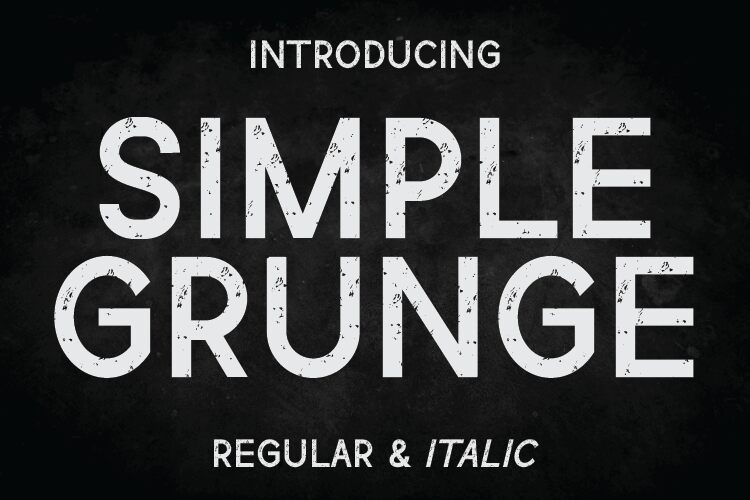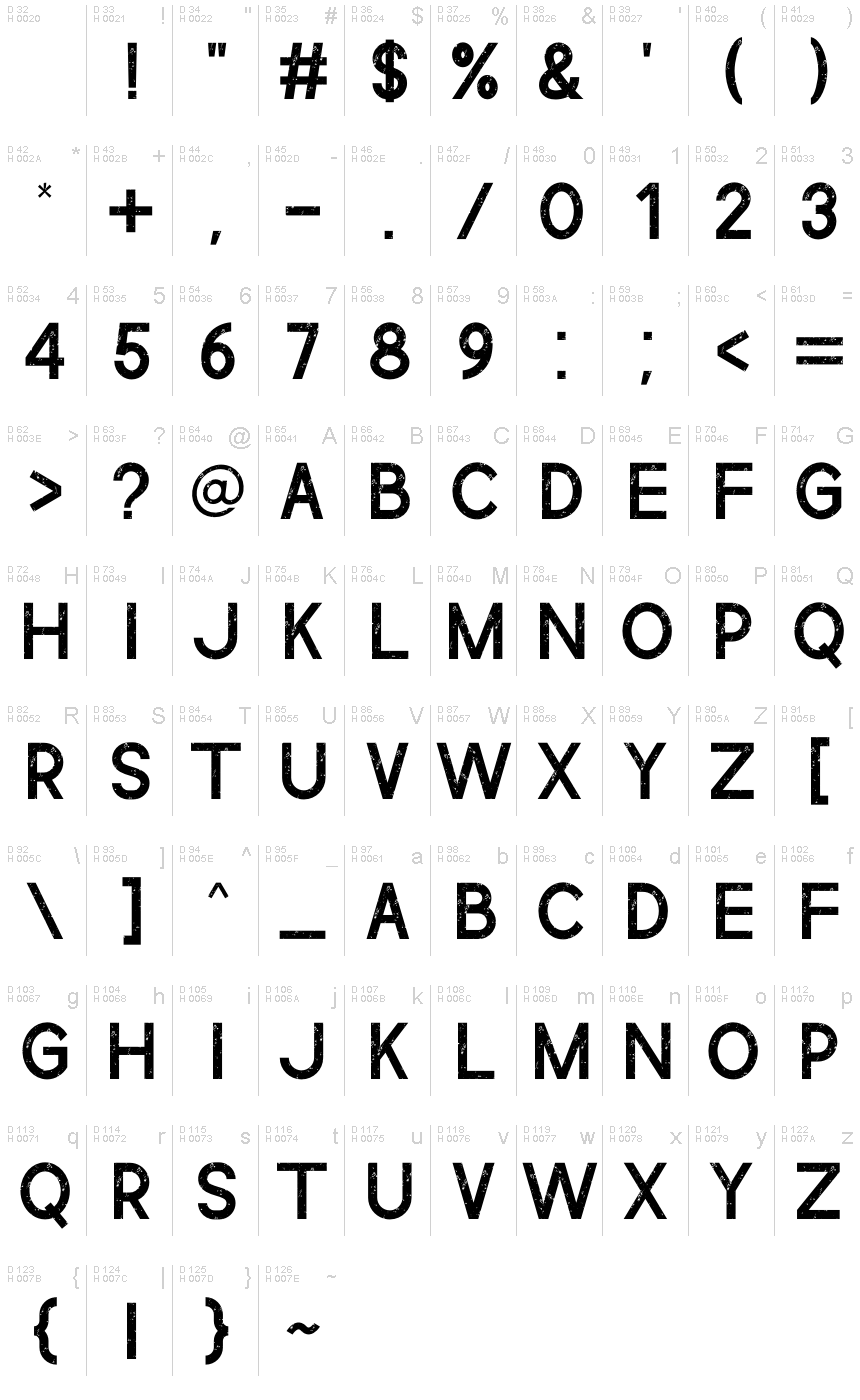
Simple Grunge
Simple Grunge, a captivating sans-serif font designed by Rvandtype, exudes a raw, gritty charm that immediately captures the attention. Its distinct character blends the refinement of clean lines with the rugged appeal of a weathered, handcrafted aesthetic. The irregular, textured strokes and subtle imperfections lend a sense of authenticity, evoking a nostalgic, industrial-inspired vibe that resonates with those seeking a striking, unique typographic style.
This versatile font shines in a variety of design applications, from eye-catching headlines and impactful logos to edgy branding and moody editorial layouts. Its bold, expressive personality makes it an ideal choice for projects that aim to convey a sense of grit, individuality, or a bold, unapologetic visual statement.